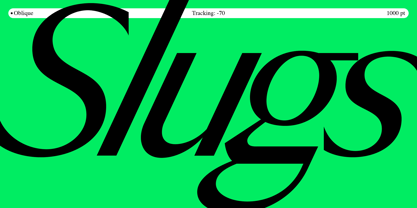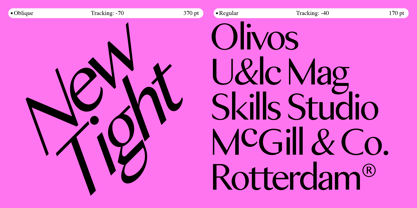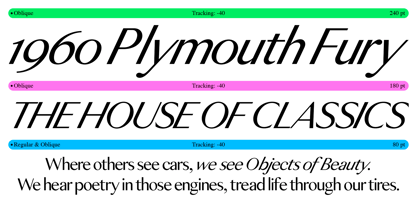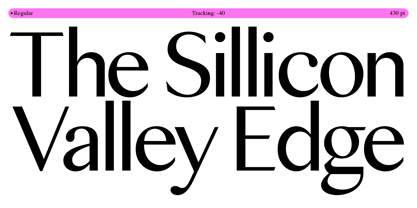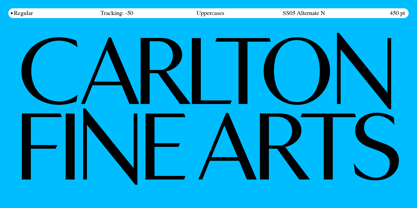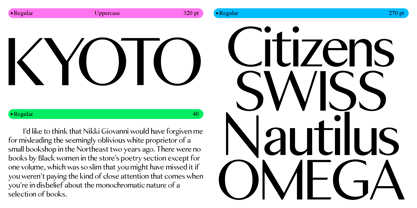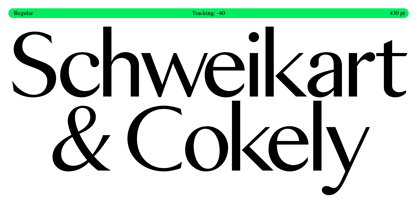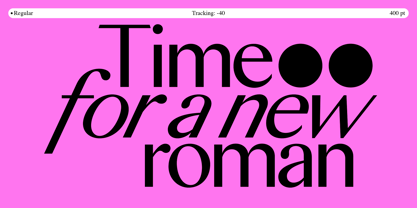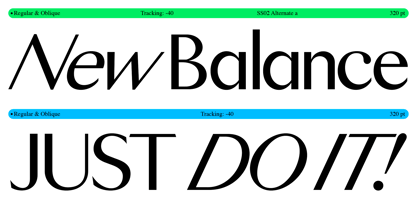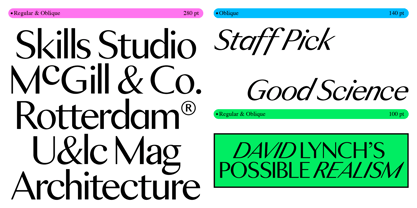
Ballmer
by Estudio Calderon
The Ballmer Font Family was designed by Felipe Calderón and published by Estudio Calderon. Ballmer contains 2 styles and family package options. More about this family
A refined take on a classic, merging timeless elegance with a sleek, modern edge. Its vintage-inspired aesthetic offers versatility for editorial, branding, and digital design, all in a clean, serif-free form.